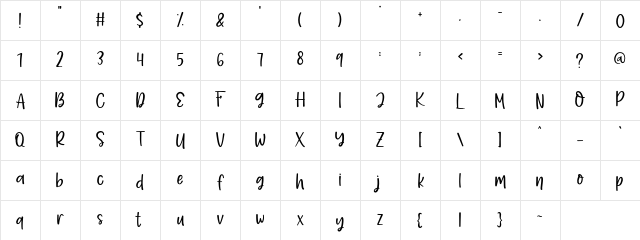
AlohaSummer is a composed and adaptable typeface that performs quietly and consistently across a wide range of design contexts.
Pro Tip: Use AlohaSummer in both headline and body roles to test its range before committing to a single application.